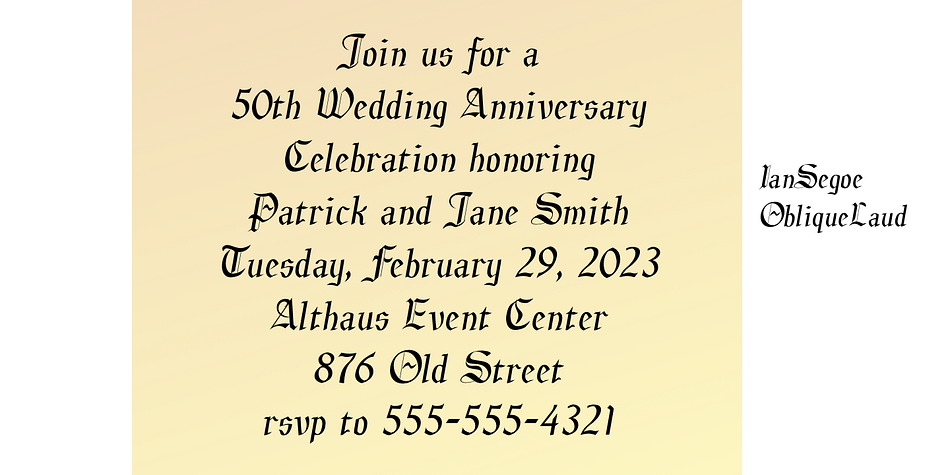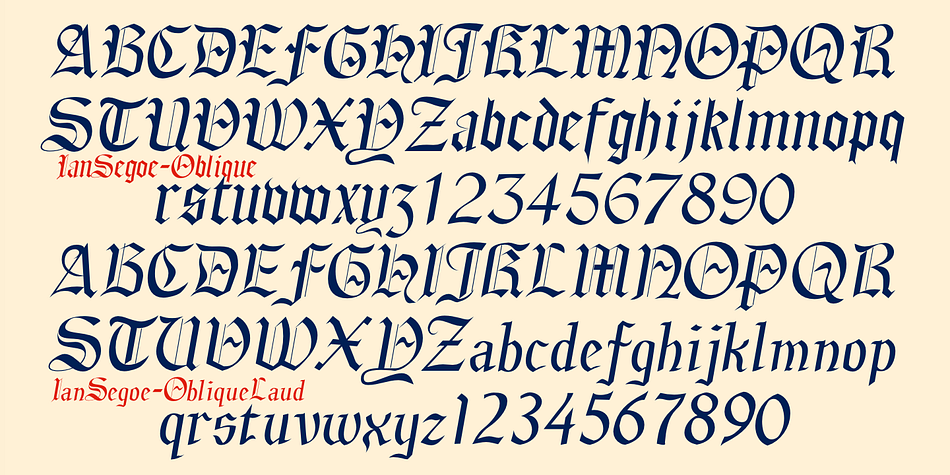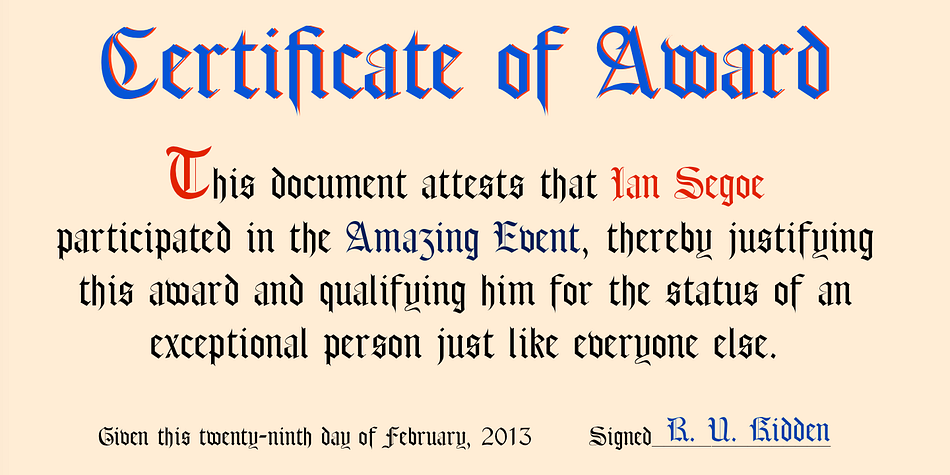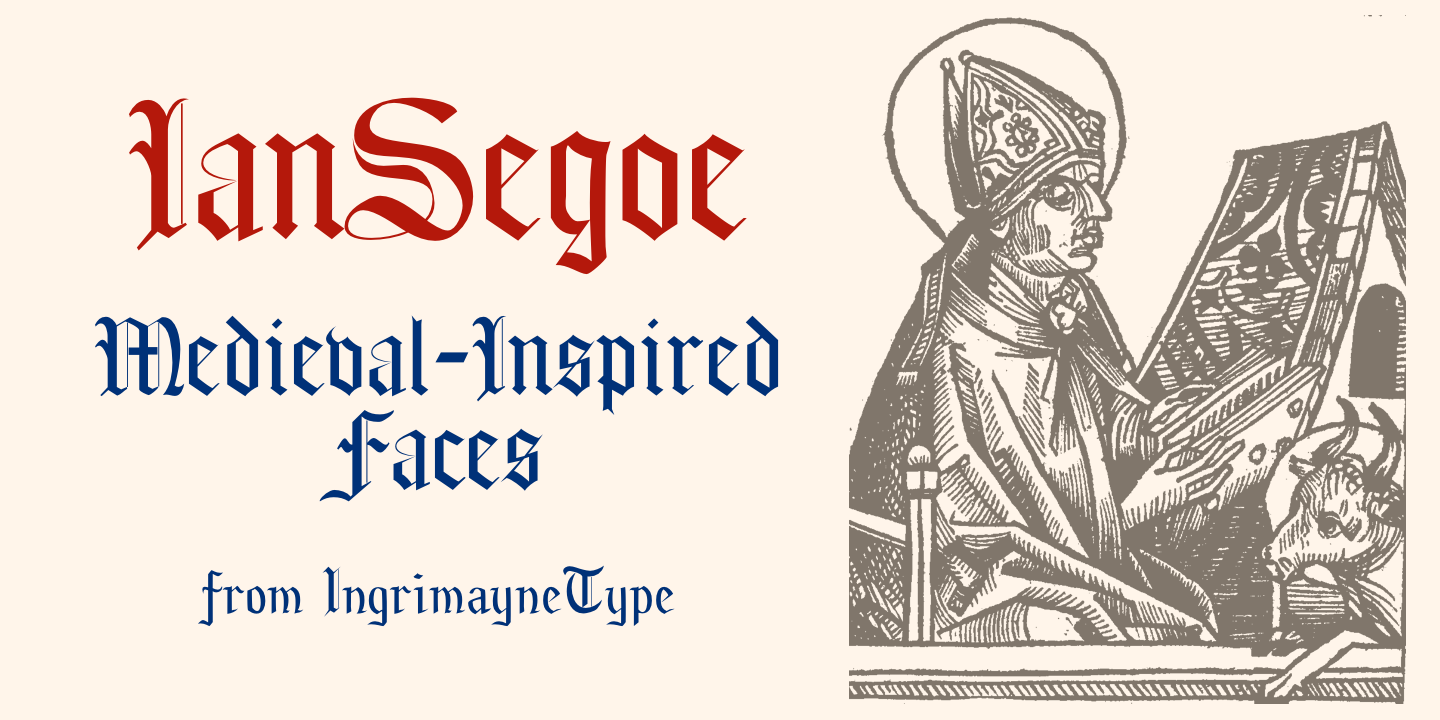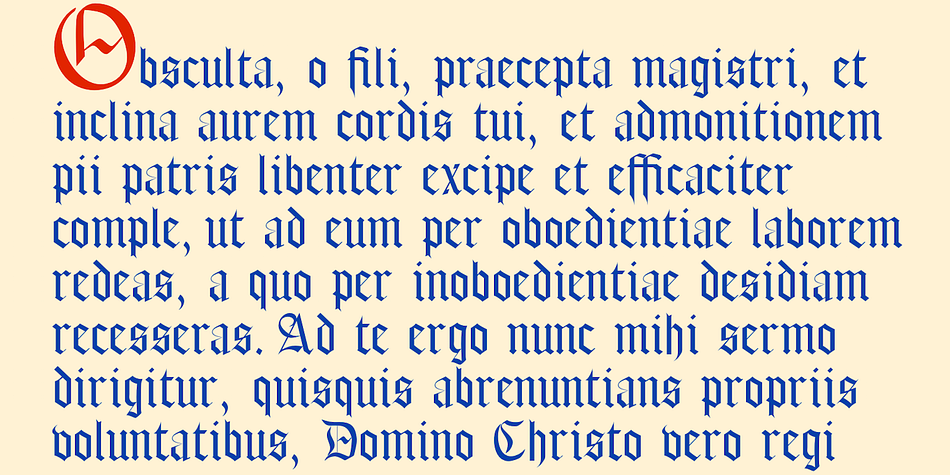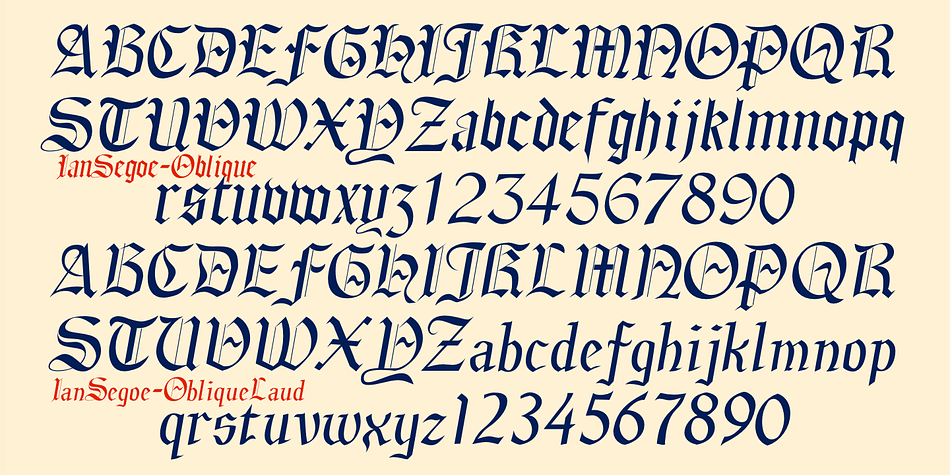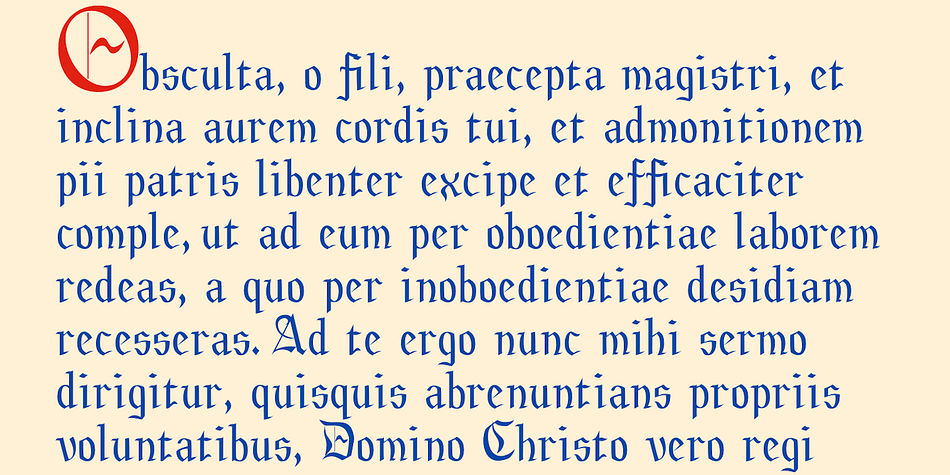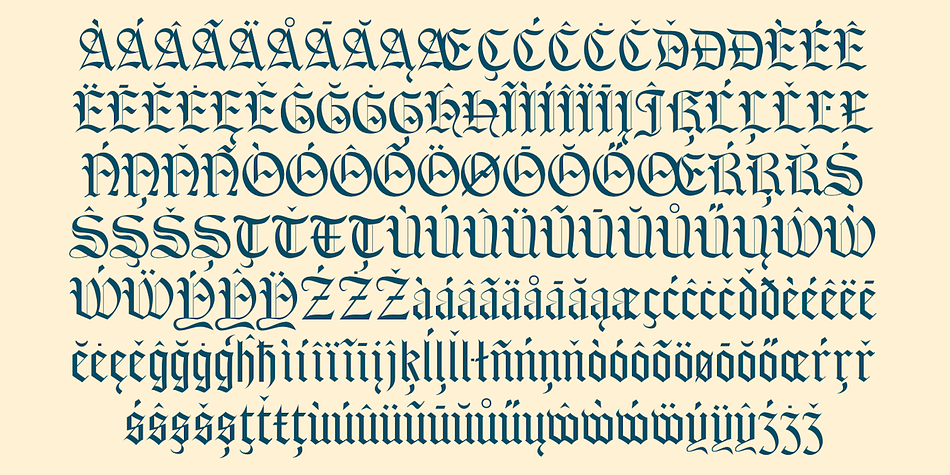
Designed by Robert Schenk, IanSegoe is a blackletter and historical font published by Ingrimayne Type.
IanSegoe was a early attempt by Ingrimayne Type to construct a medieval-looking face.
Foundry | Ingrimayne Type |
Released | 1990 |
Styles | Blackletter, Historical |
Designer | Robert Schenk |